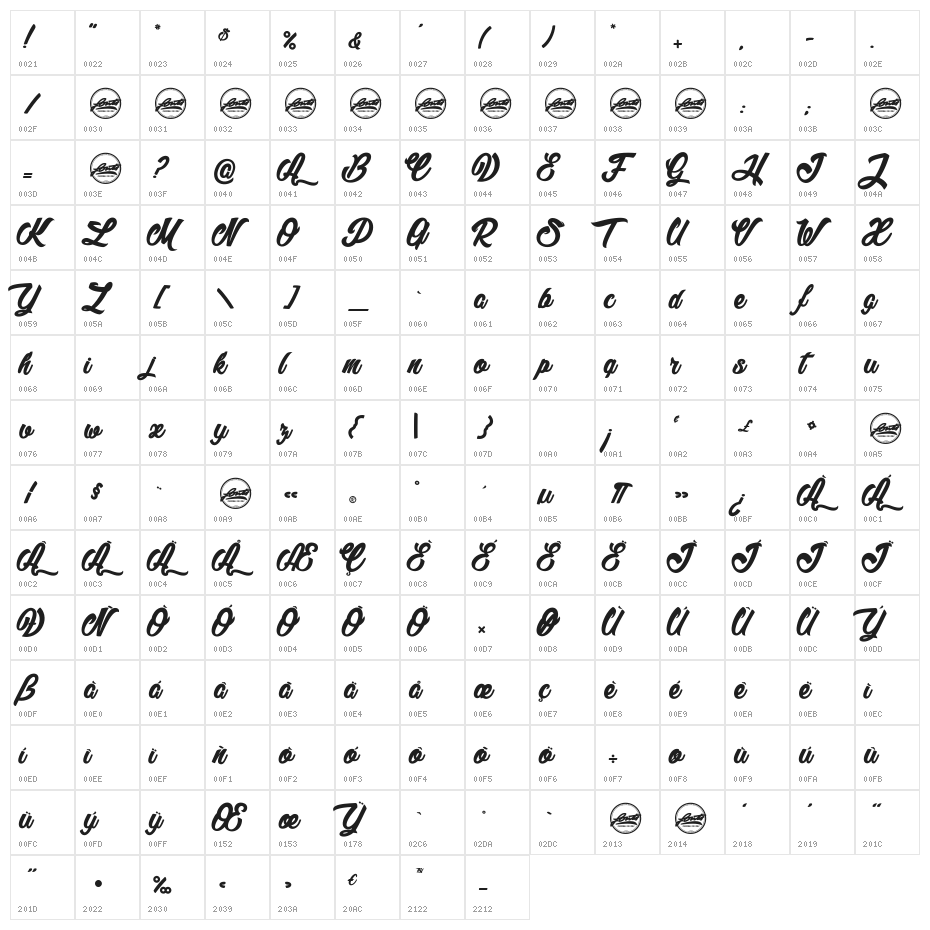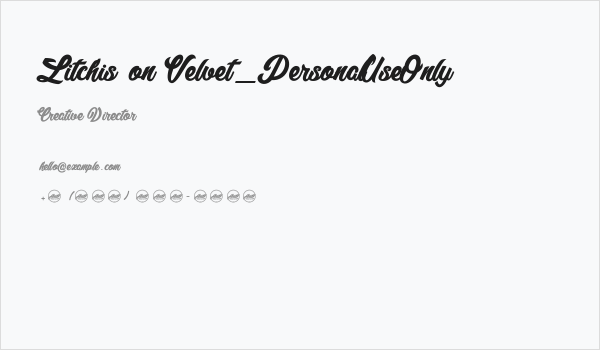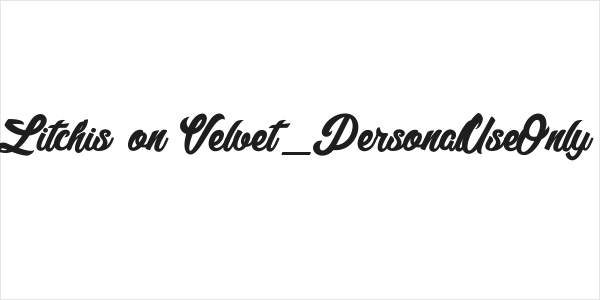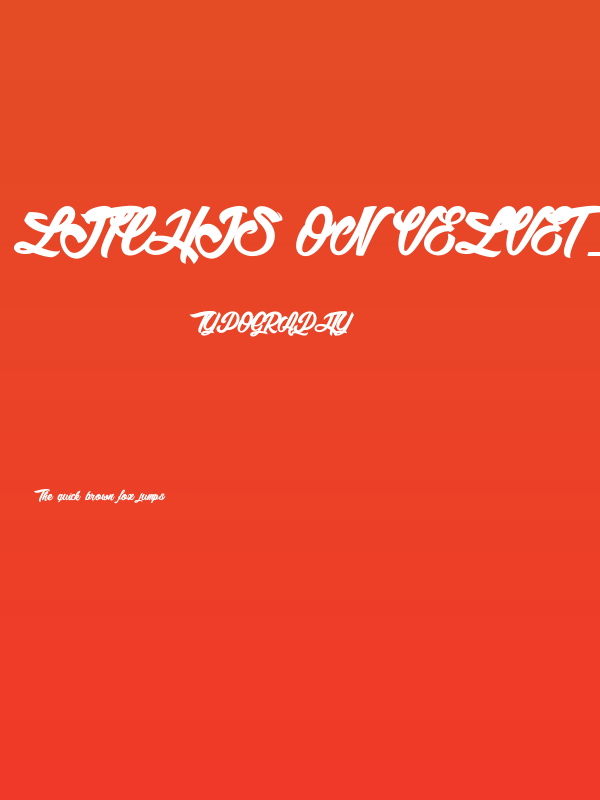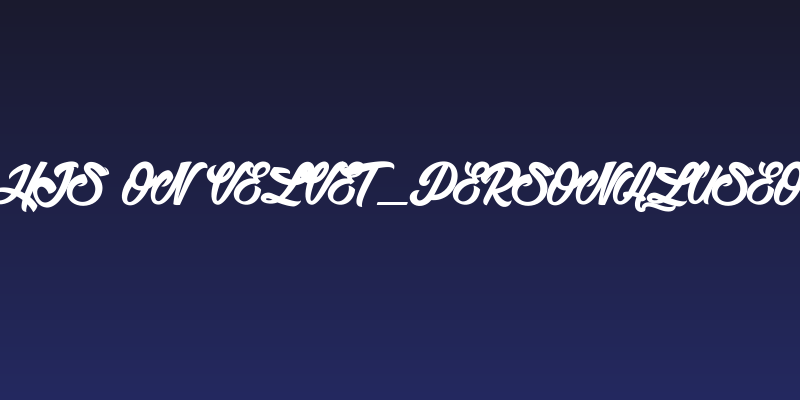
Litchis on Velvet_PersonalUseOnly Font
Litchis on Velvet_PersonalUseOnly Description
This font features a bold and flowing script style, characterized by its elegant and connected letterforms. The uppercase letters exhibit a dramatic flair with sweeping curves and loops, while the lowercase letters maintain a consistent fluidity, enhancing the font's cohesive appearance. The numbers and special characters are crafted with the same attention to detail, ensuring a harmonious look across all glyphs. The overall design is reminiscent of classic calligraphy, yet it maintains a modern edge, making it suitable for a variety of creative applications.
| Proposed Projects | Ideal for wedding invitations, branding, logo design, and decorative signage. |